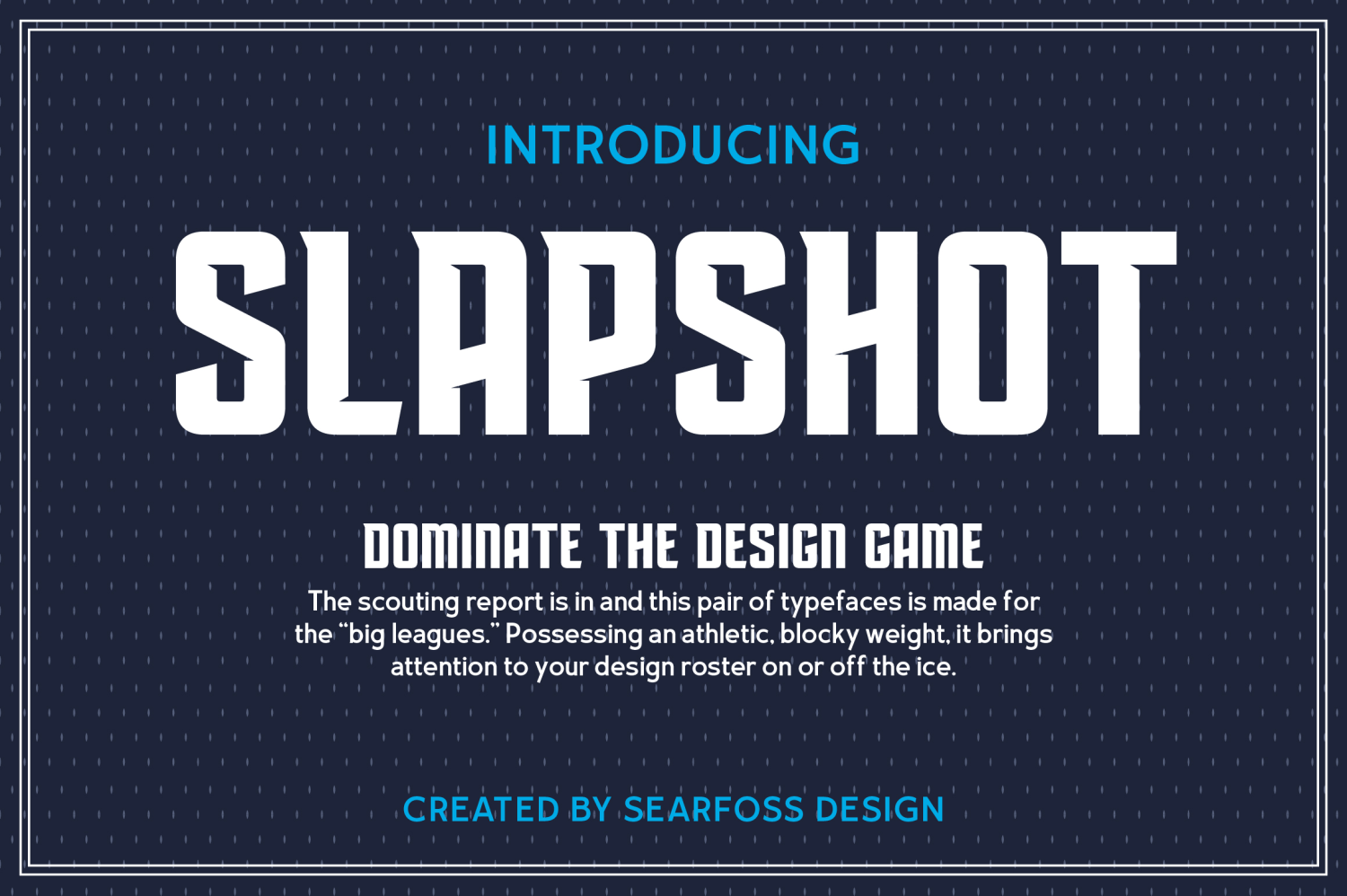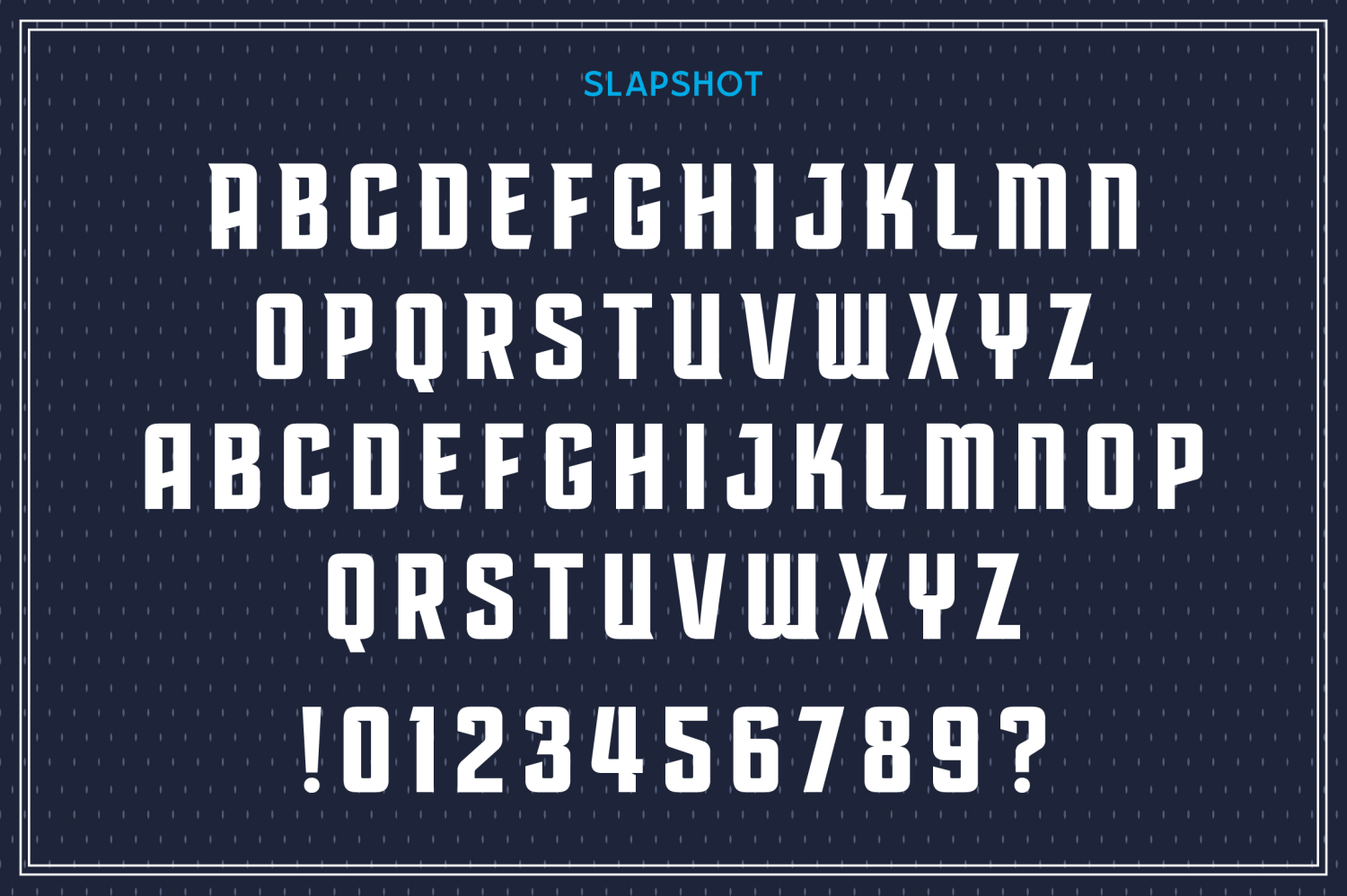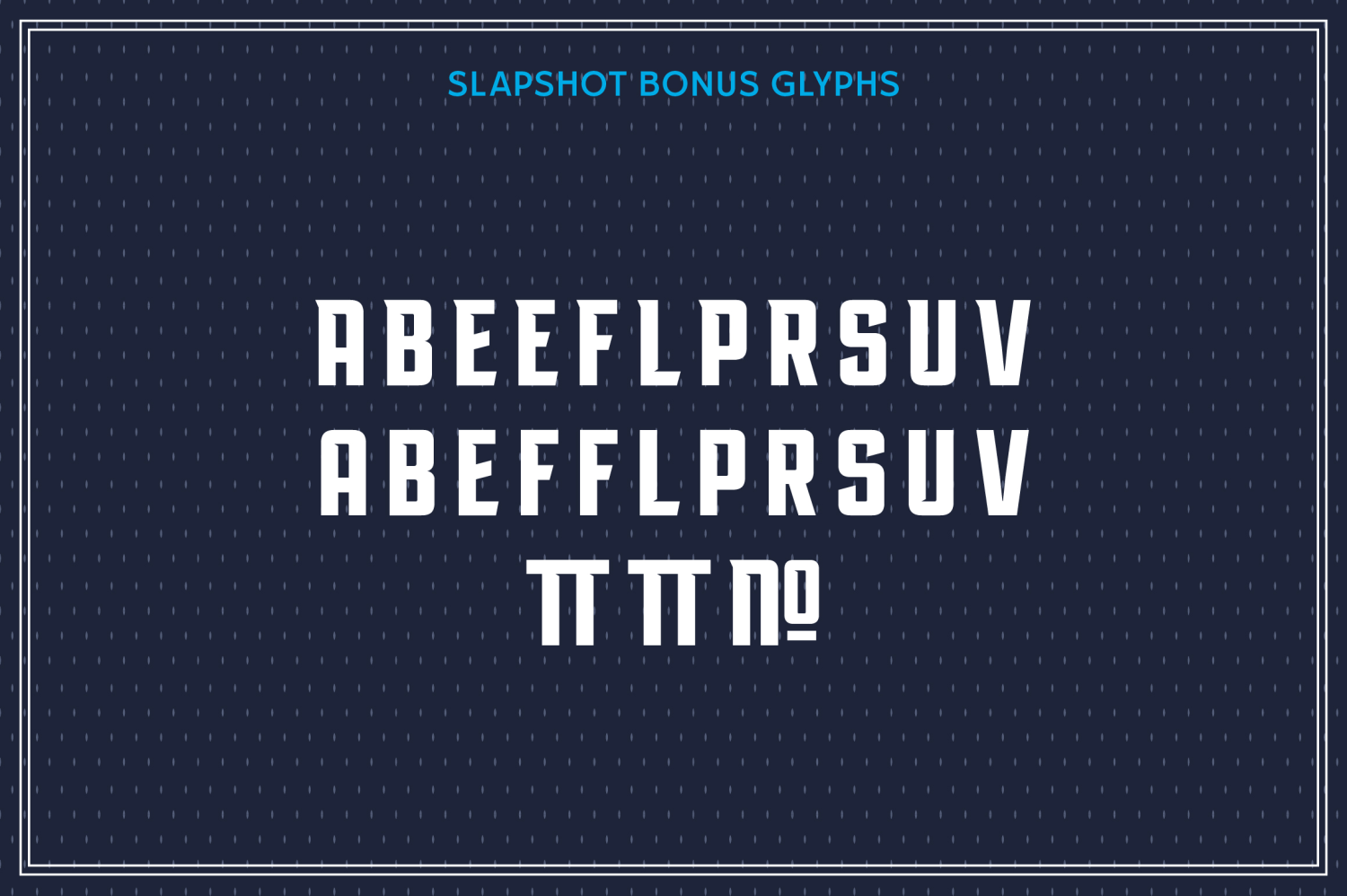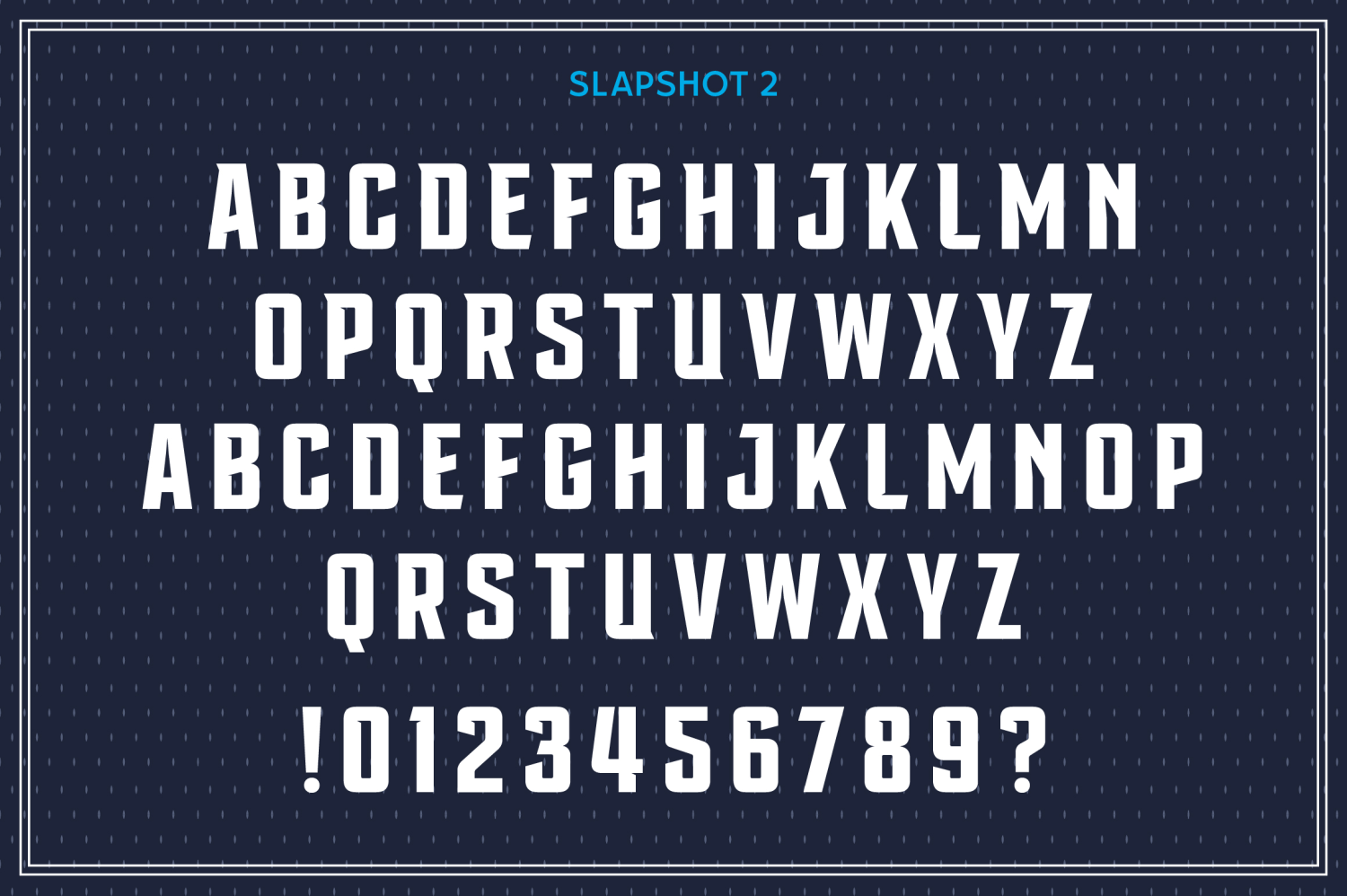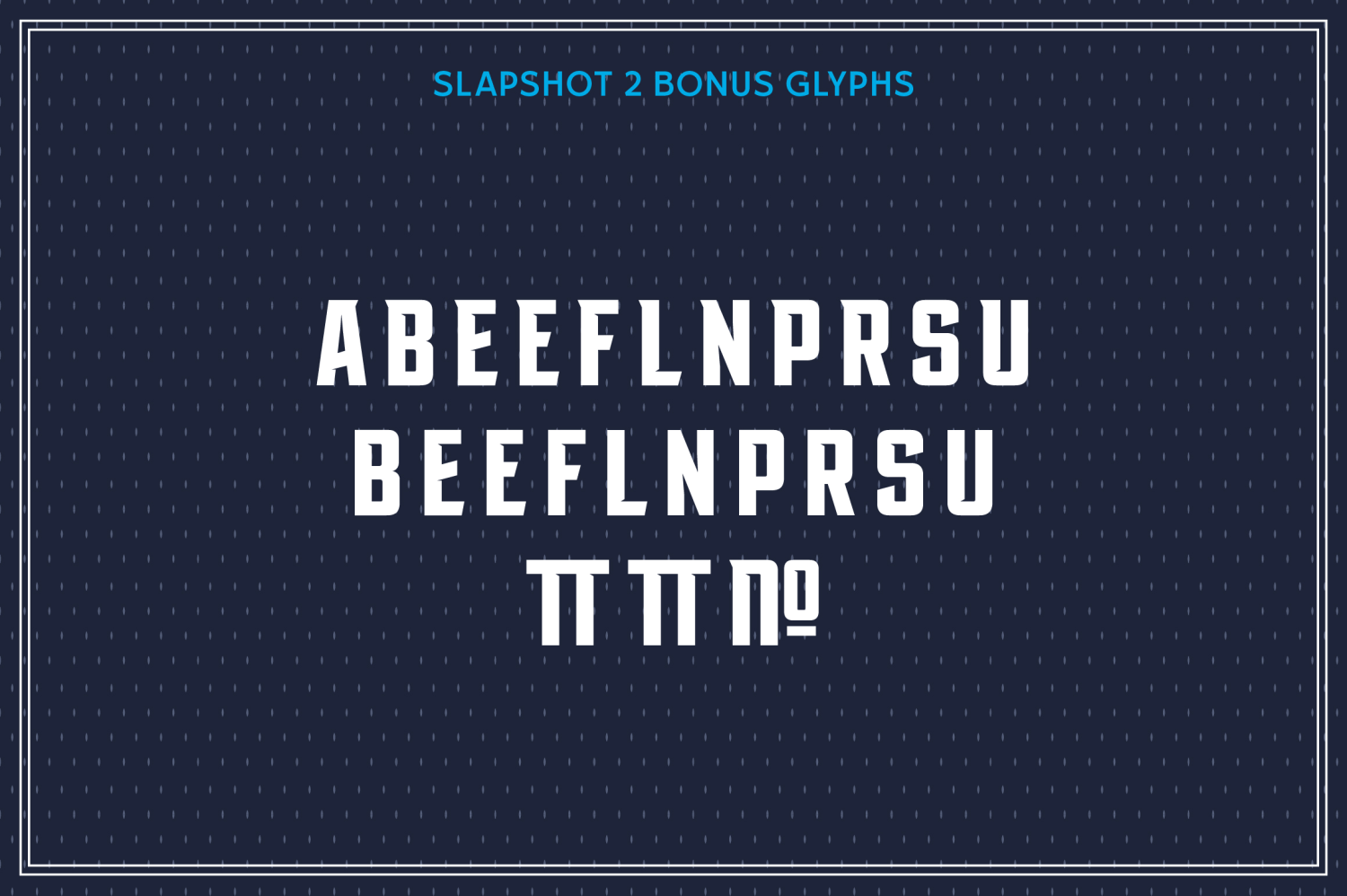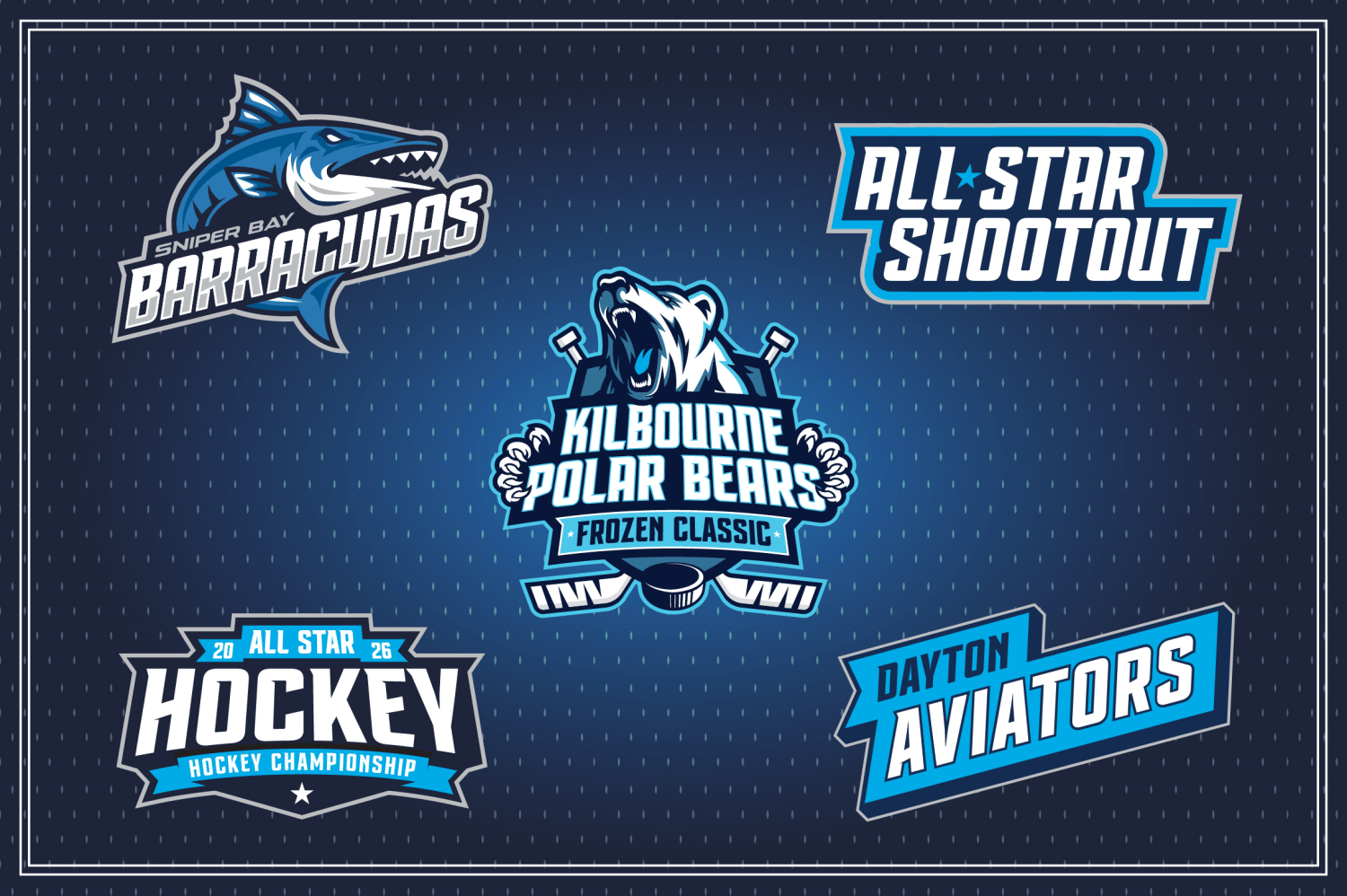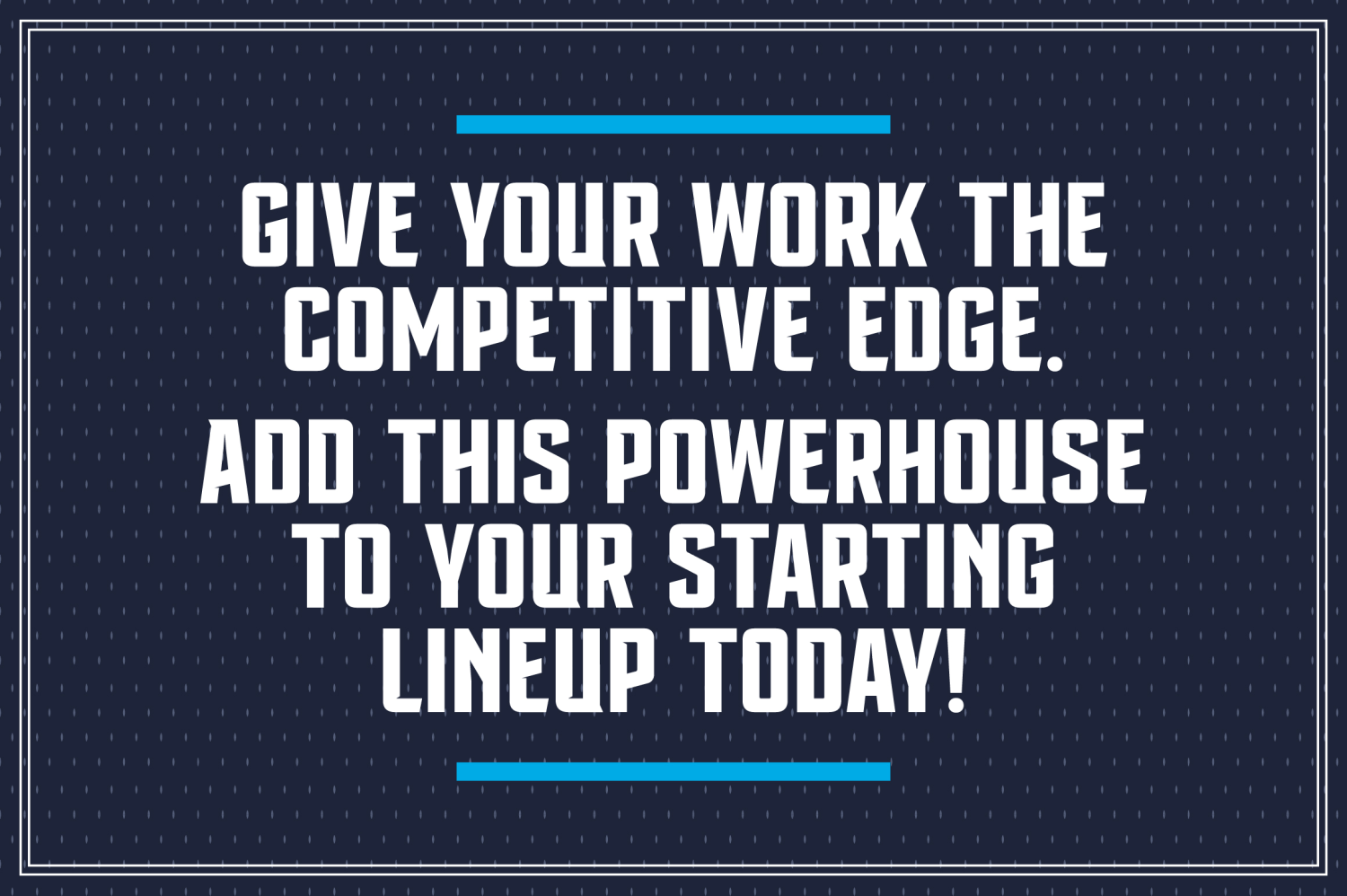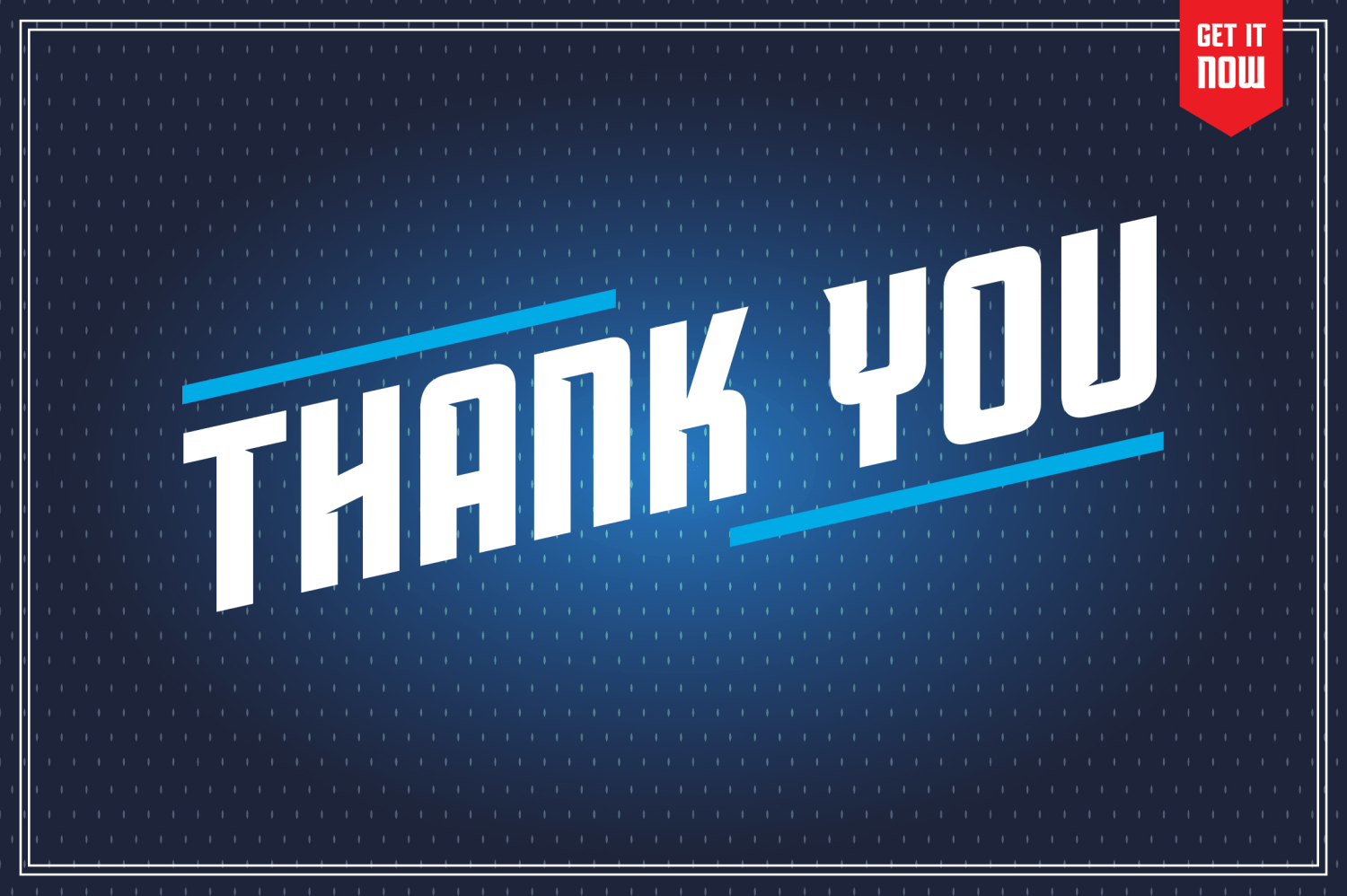
Slapshot
Slapshot is a hard-hitting display family built for designs that need speed, strength, and a competitive edge. Its tall, athletic letterforms combine heavy block construction with sharp notches, angled cuts, and compact proportions, creating the unmistakable energy of professional sports branding.
The family includes two complementary typefaces designed to work as a complete starting lineup. Slapshot delivers the more distinctive voice, with pronounced cuts and aggressive details that command attention in team names, logos, and primary headlines. Slapshot 2 offers a cleaner interpretation of the same athletic structure, making it ideal for supporting text, secondary messaging, and layered badge compositions.
A collection of bonus glyphs and alternate characters gives designers added control when building custom wordmarks. Swap key letters for alternate forms, introduce compact letter combinations, and use specialized symbols to give each identity its own personality. The narrow construction also packs substantial impact into limited horizontal space, making Slapshot especially effective on jerseys, banners, patches, merchandise, and social graphics.
Created for hockey, baseball, football, basketball, esports, racing, fitness, and other high-energy markets, Slapshot is ready for team identities, tournament branding, apparel, posters, packaging, and promotional campaigns. Whether you’re naming a hometown club or launching an all-star event, Slapshot gives every design a powerful presence worthy of the big leagues.